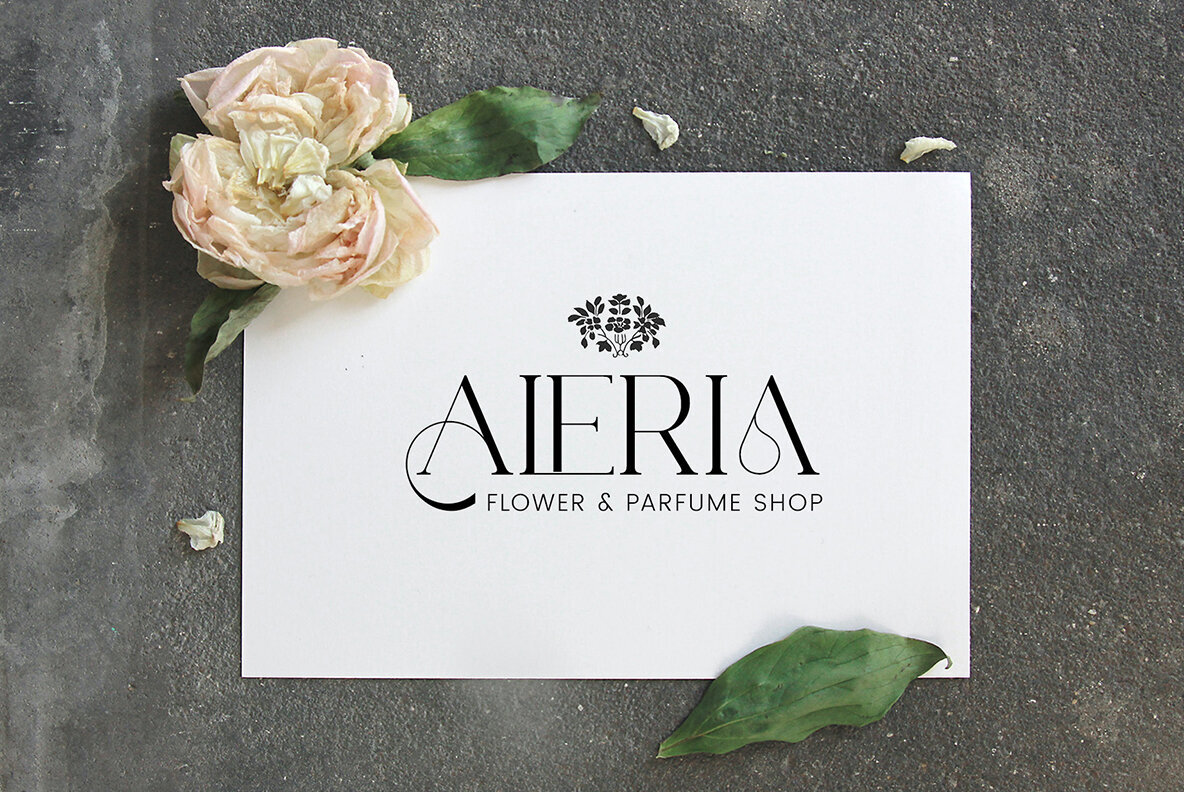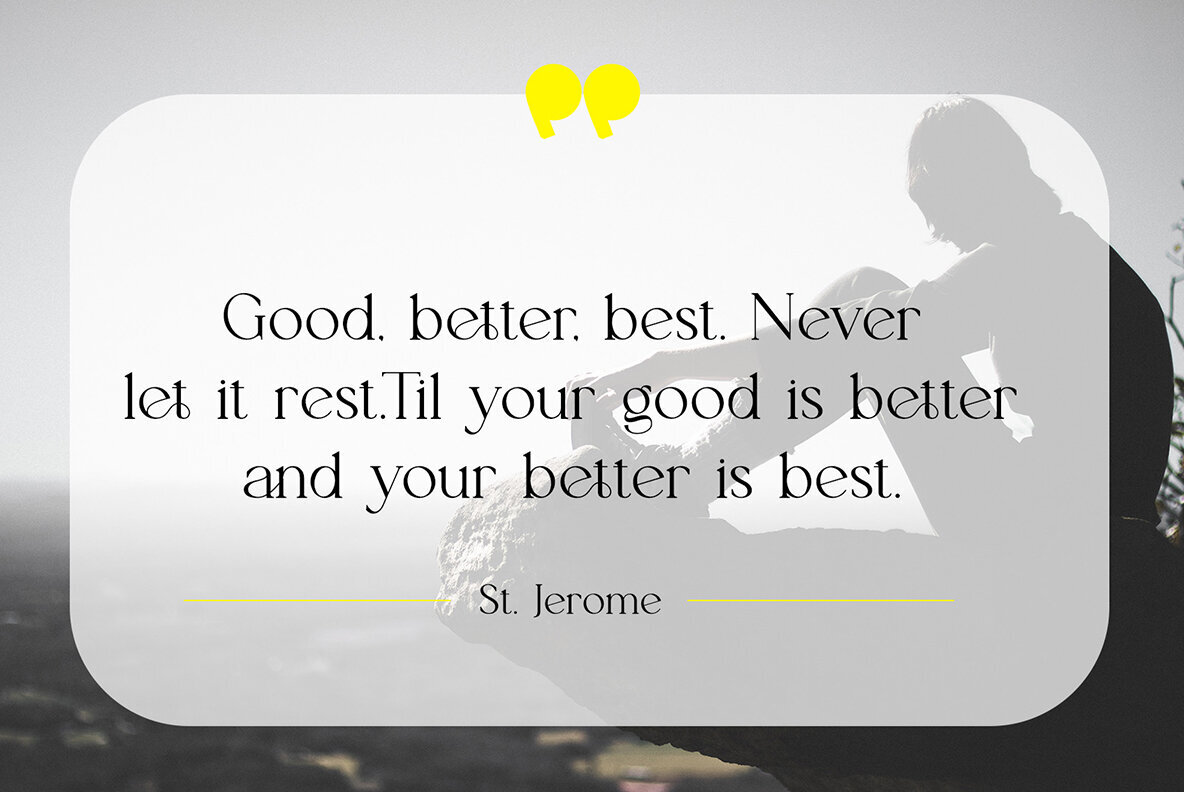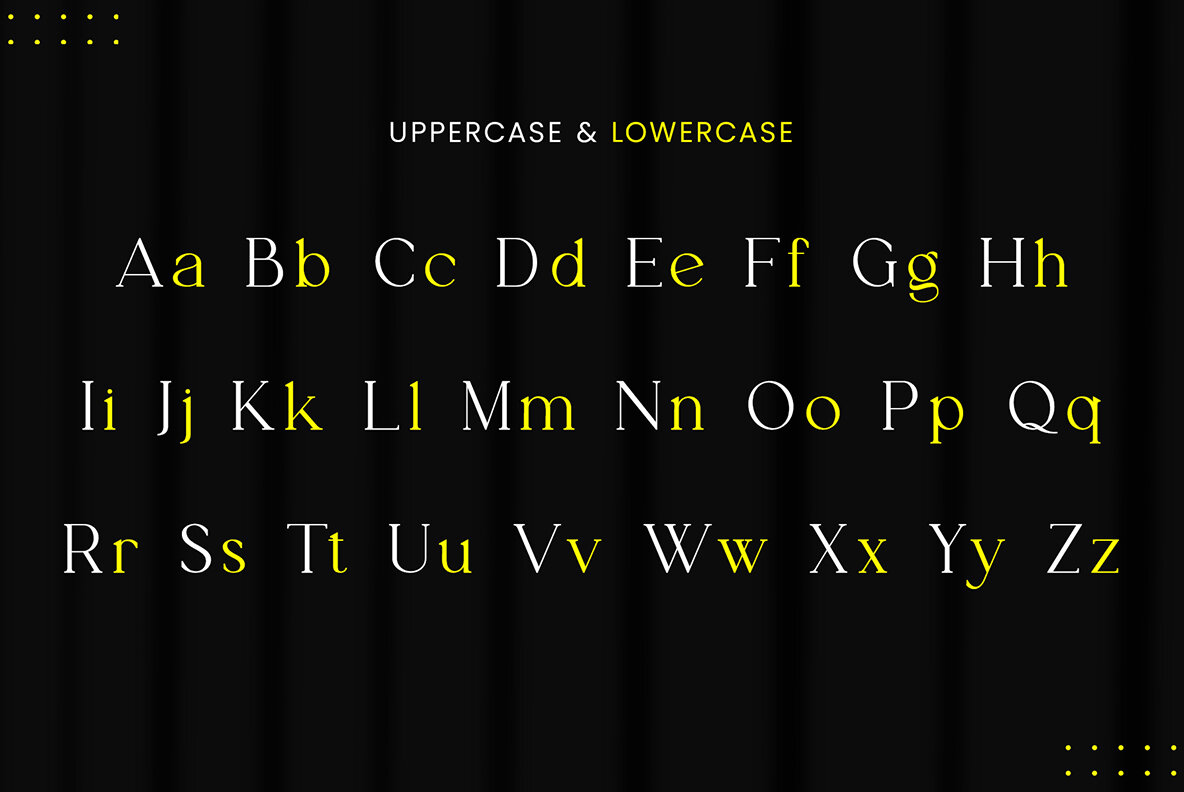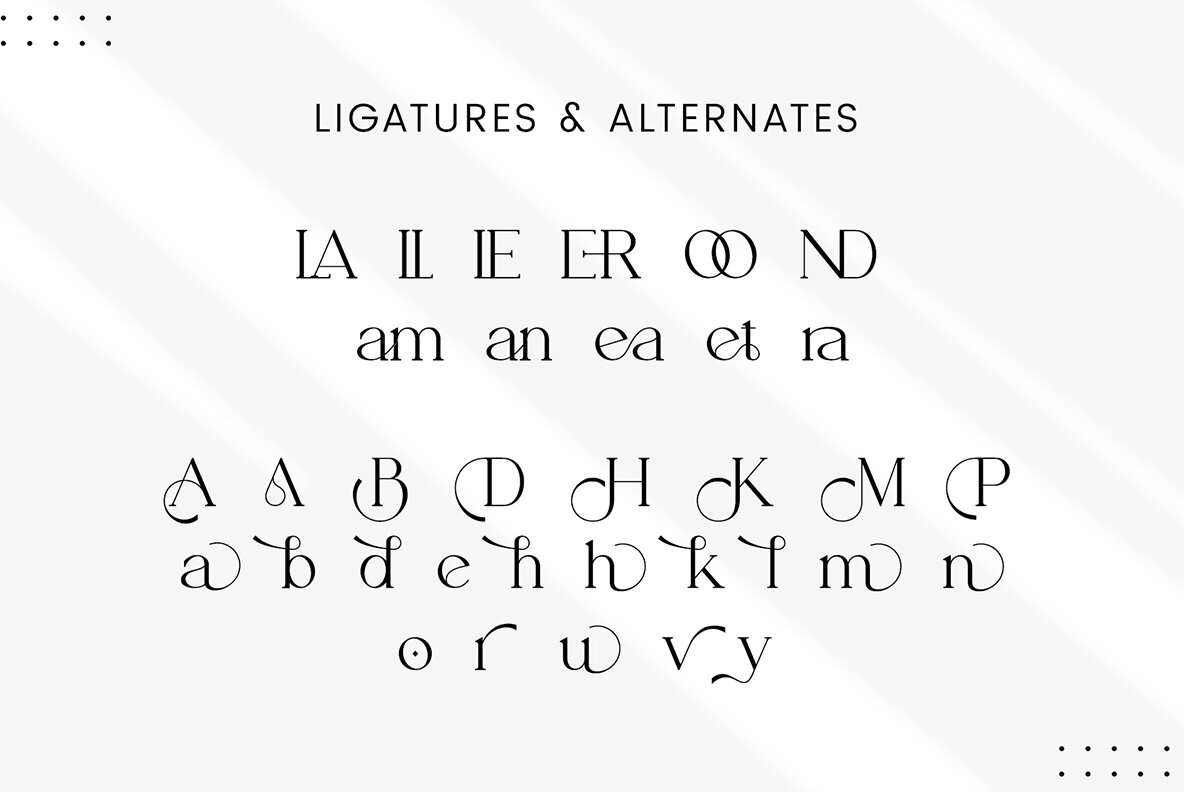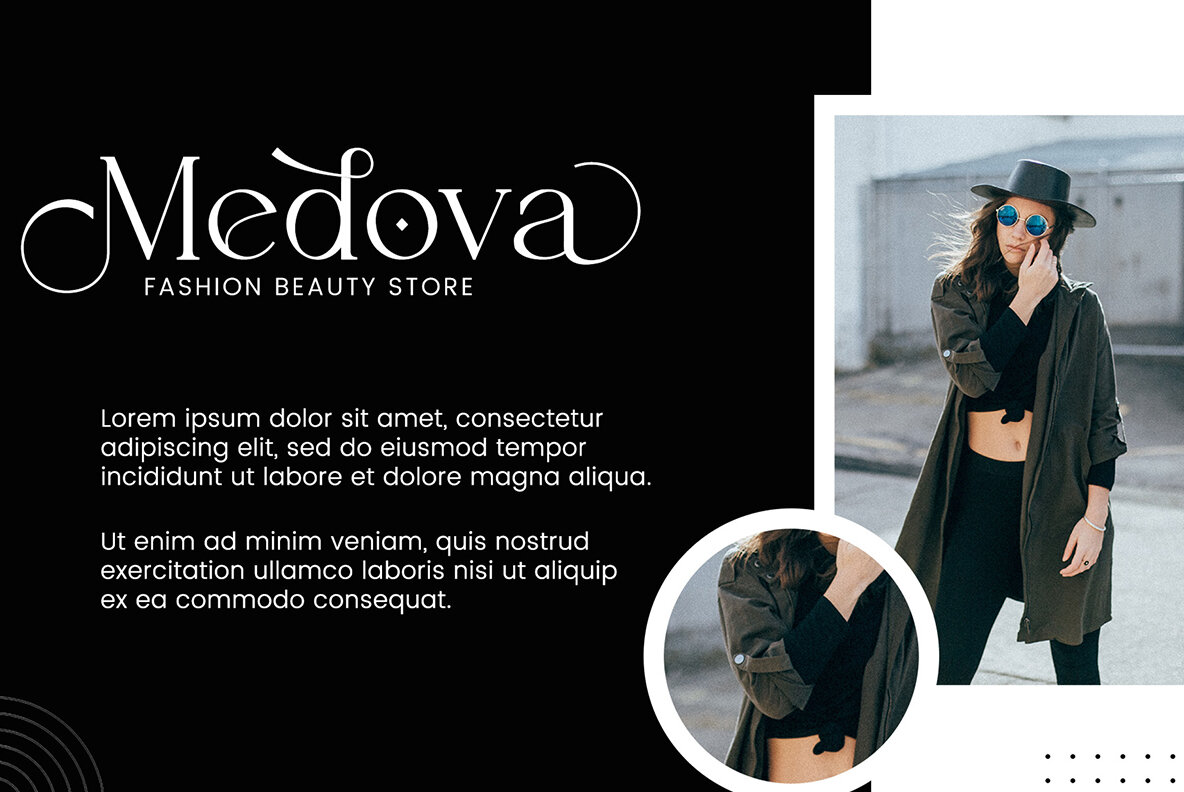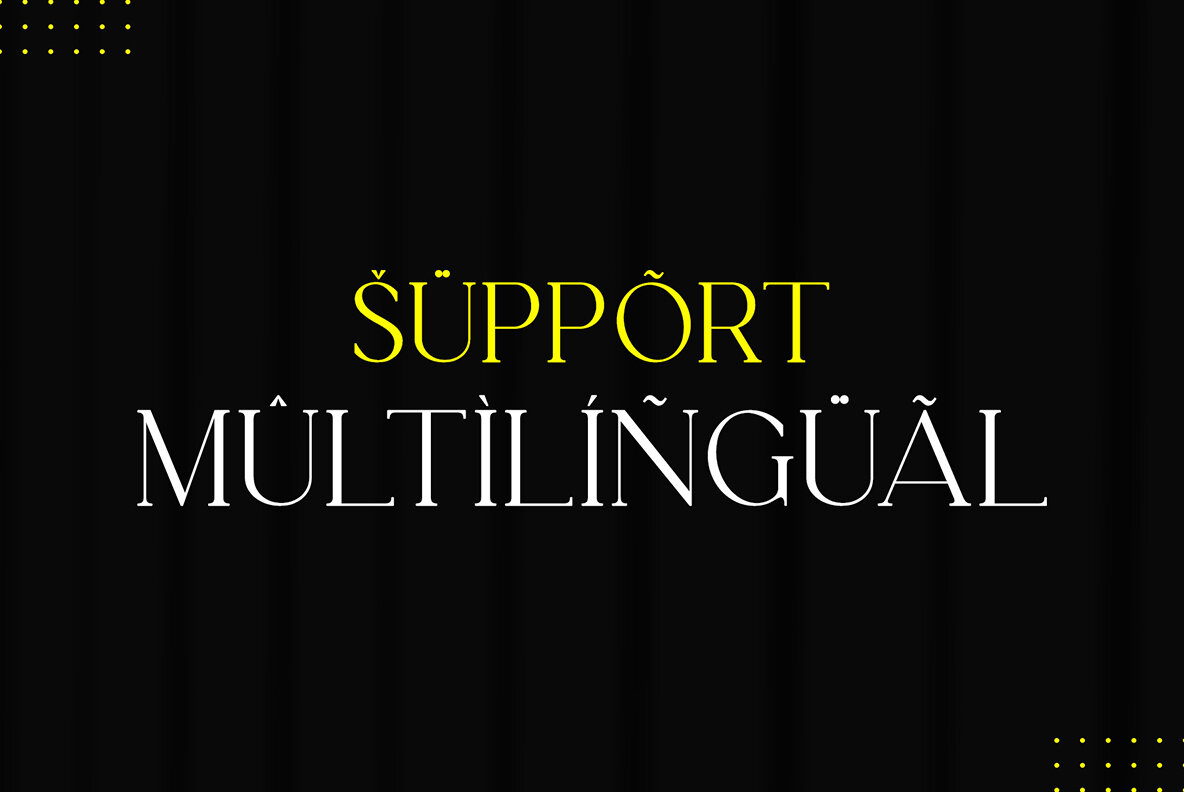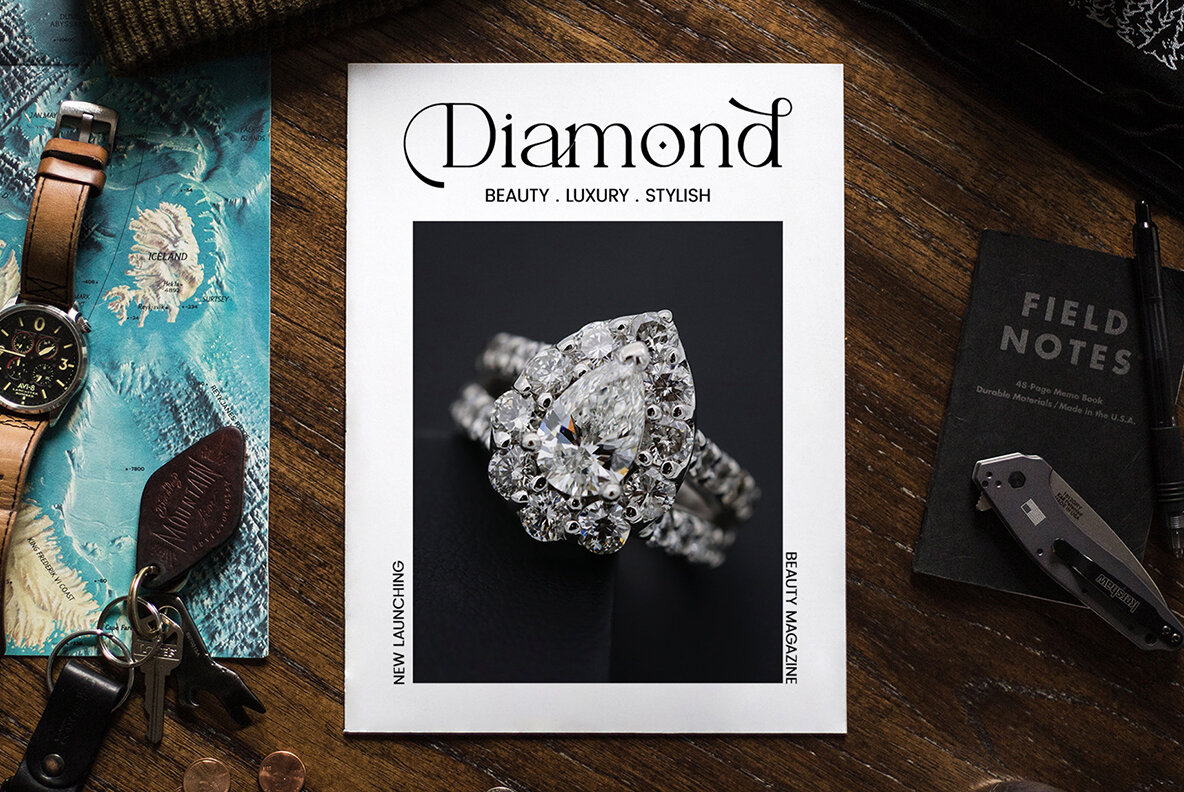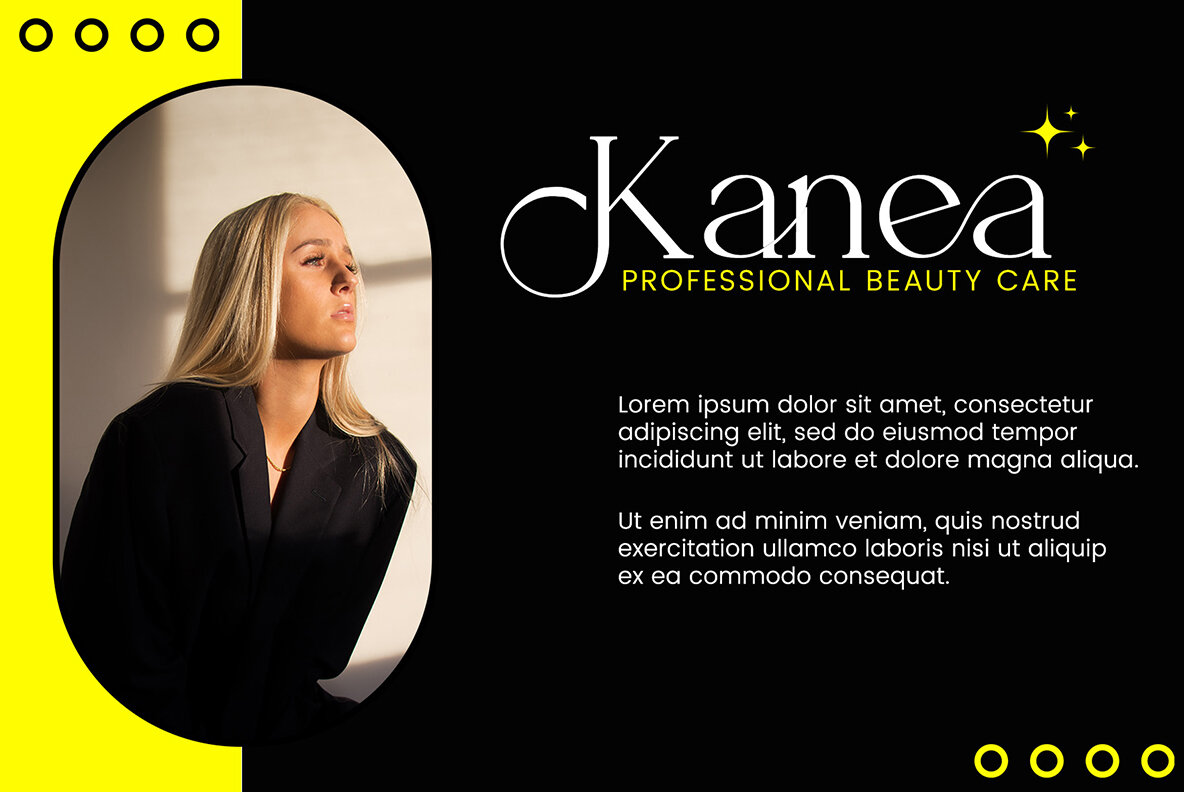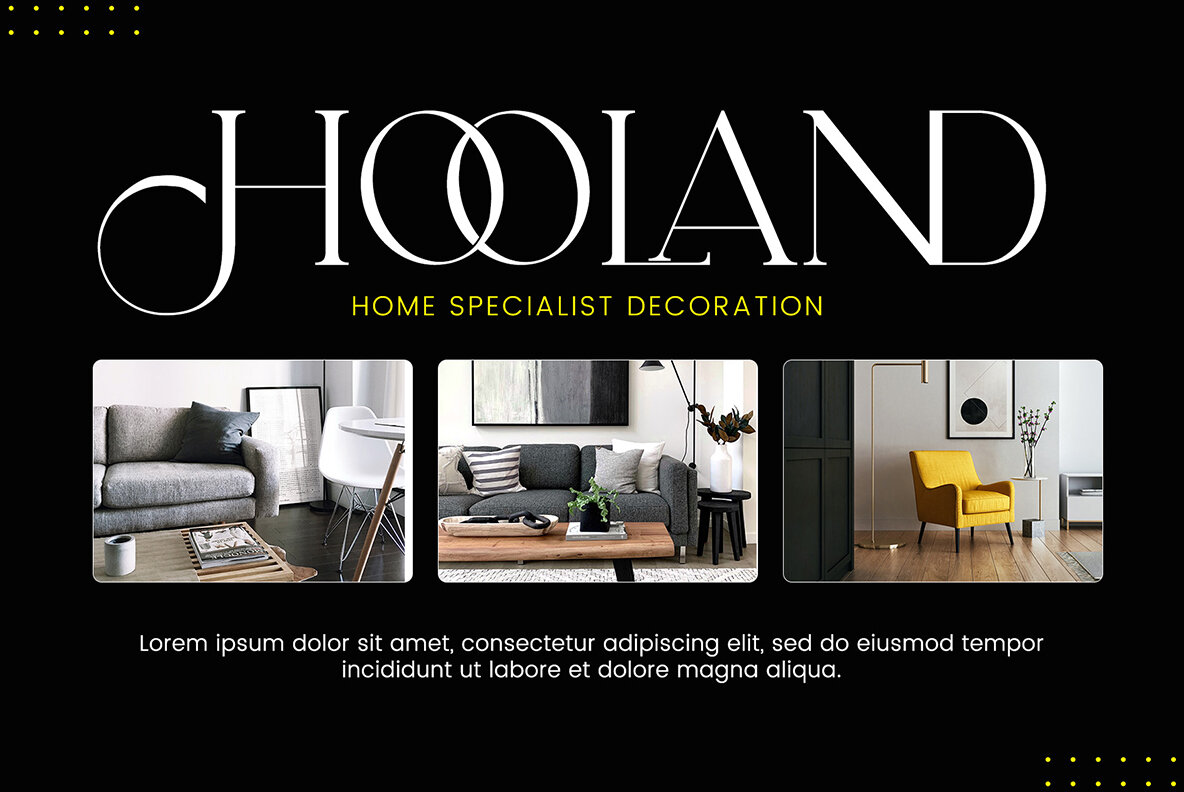
Brolyn Font
Brolyn Regular
Brolyn Serif is a balanced and refined typeface that exemplifies smooth elegance and a sophisticated style. Its distinct character makes it particularly well-suited for various design projects such as invitation cards, company logos, movie titles, business cards, brand names, and book titles. This subtle serif font offers an aura of sophistication, making it an ideal choice for enhancing the elegance of your designs.Brolyn: Elegant Serif with Stylish Details